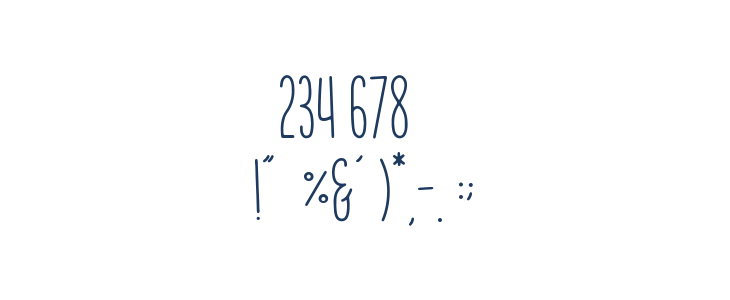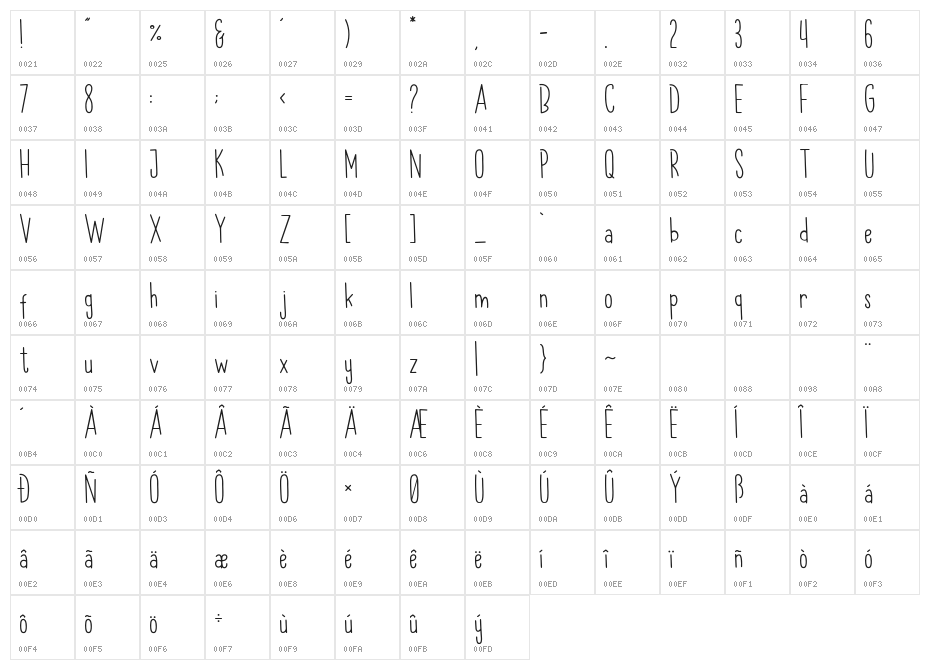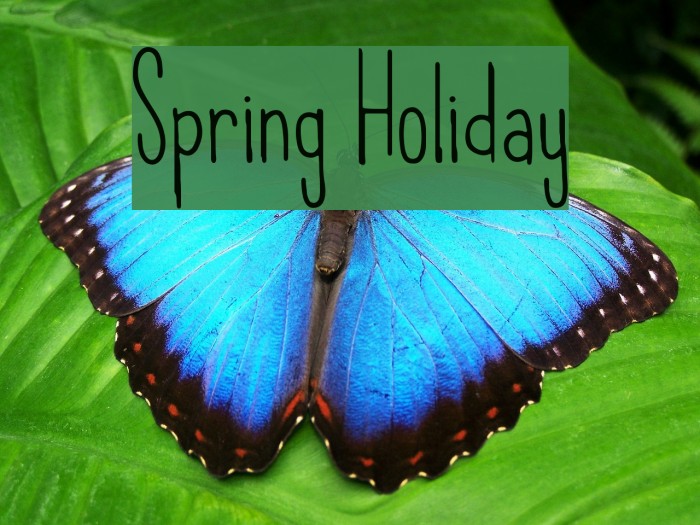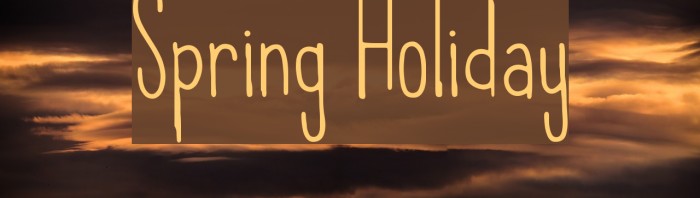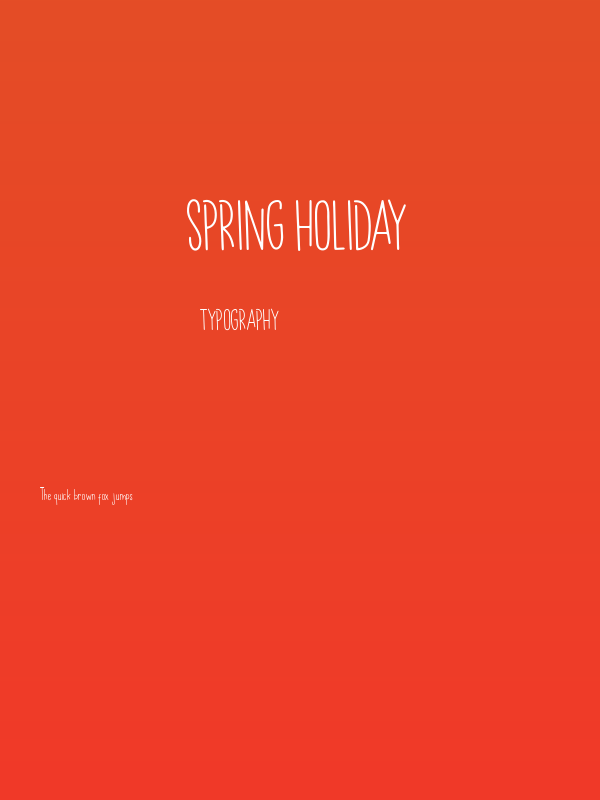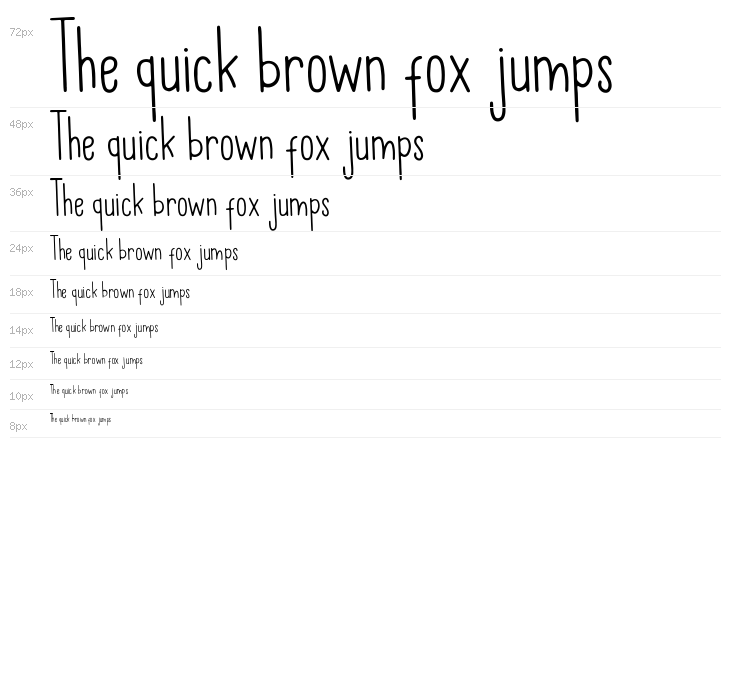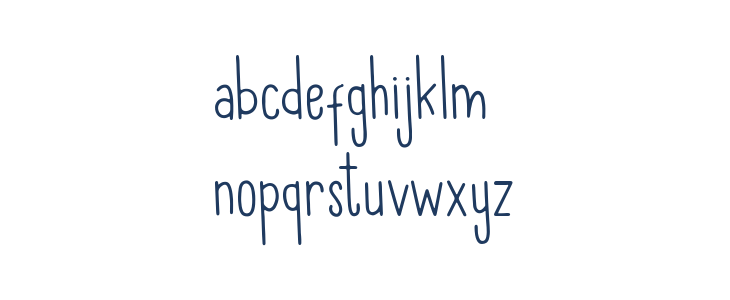
Spring Holiday Font
Spring Holiday Description
This font features a playful and whimsical style with tall, narrow characters that have a hand-drawn appearance. The strokes are consistent in width, giving it a clean and modern look. The uppercase letters are slightly taller than the lowercase, maintaining a uniform height across the alphabet. The numerals and special characters follow the same design principles, ensuring a cohesive appearance. The font's overall aesthetic is casual and friendly, making it suitable for projects that require a touch of personality and charm.
| Proposed Projects | Ideal for greeting cards, children's books, playful branding, and casual invitations. |